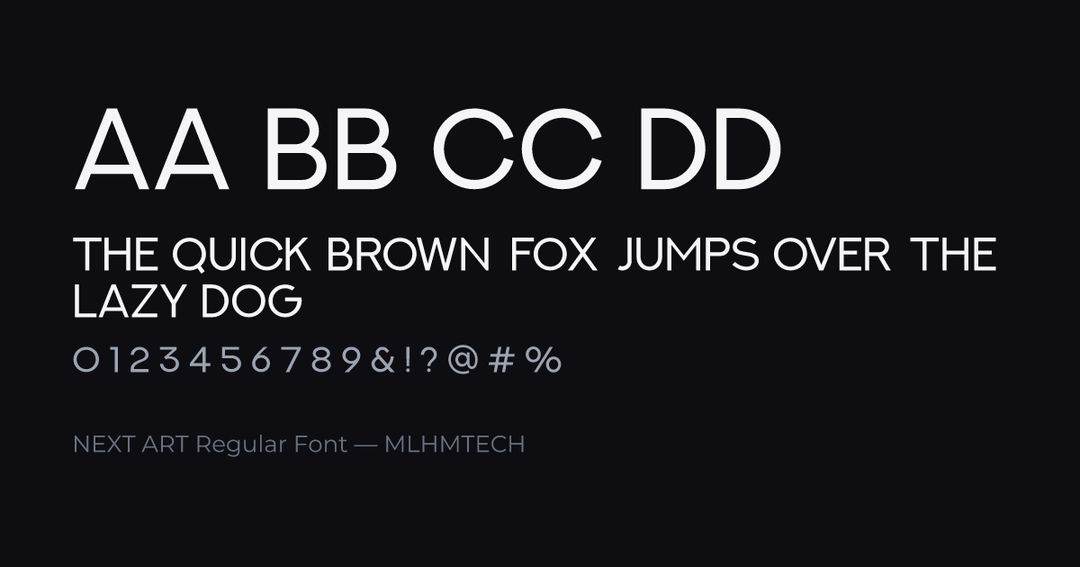
NEXT ART Regular Font
NEXT ART Regular is a clean, modern sans-serif font ideal for titles, logos, and creative projects. Its geometric shapes ensure readability and style.
NEXT ART Regular is a versatile sans-serif font that brings a contemporary feel to any project. With its balanced proportions and clean lines, it works well for headlines, subtitles, and branding elements. The font's neutral yet distinctive character makes it a reliable choice for both video editing and graphic design.